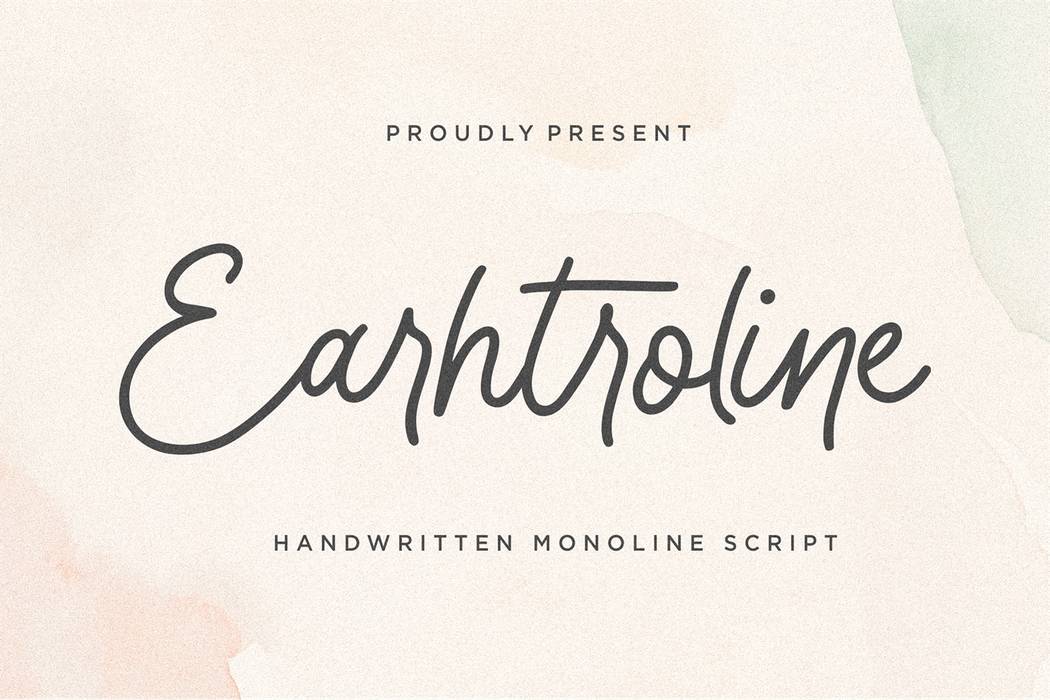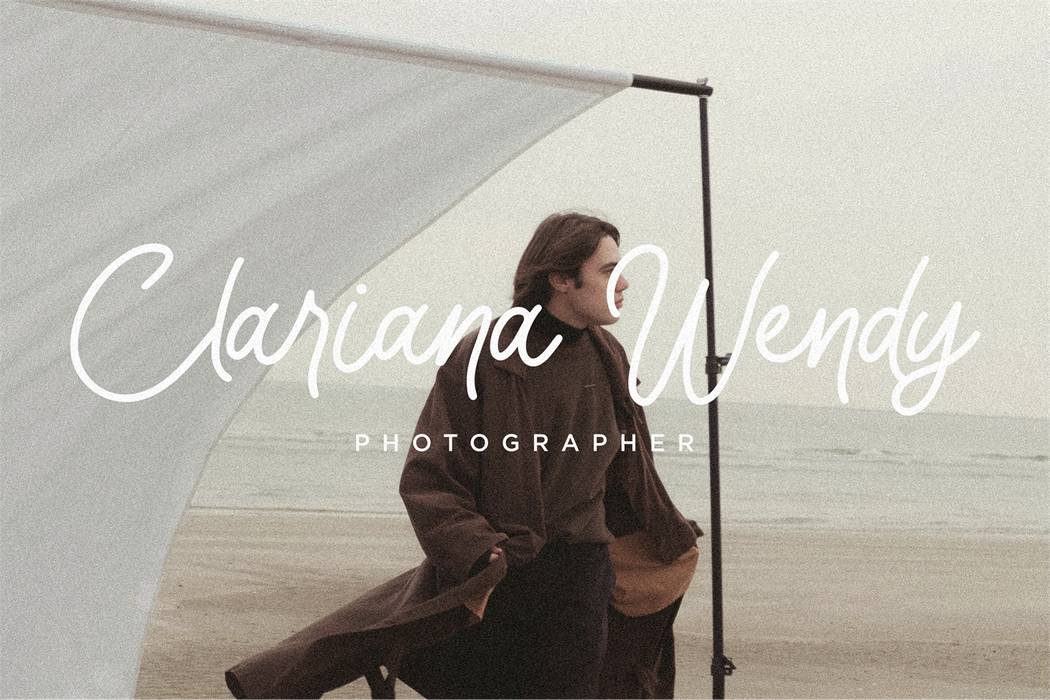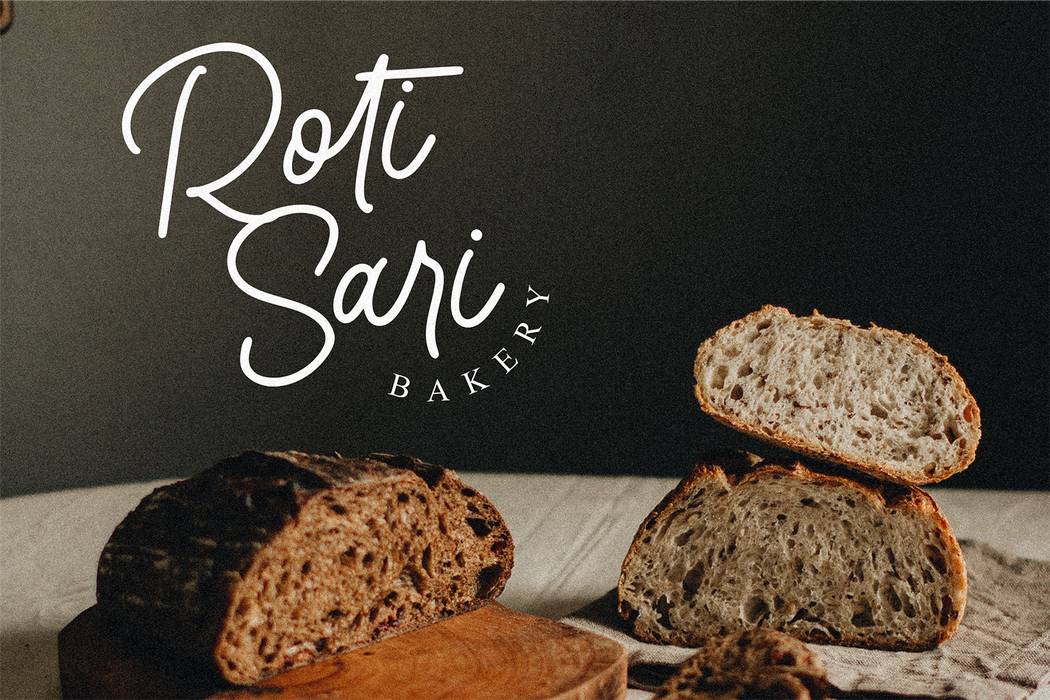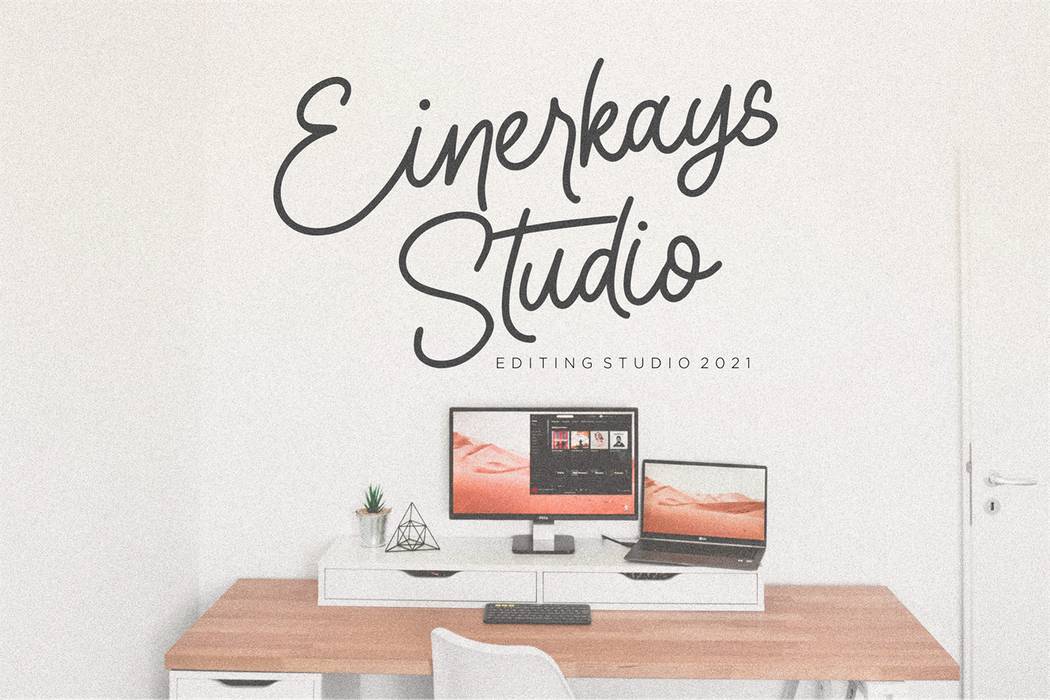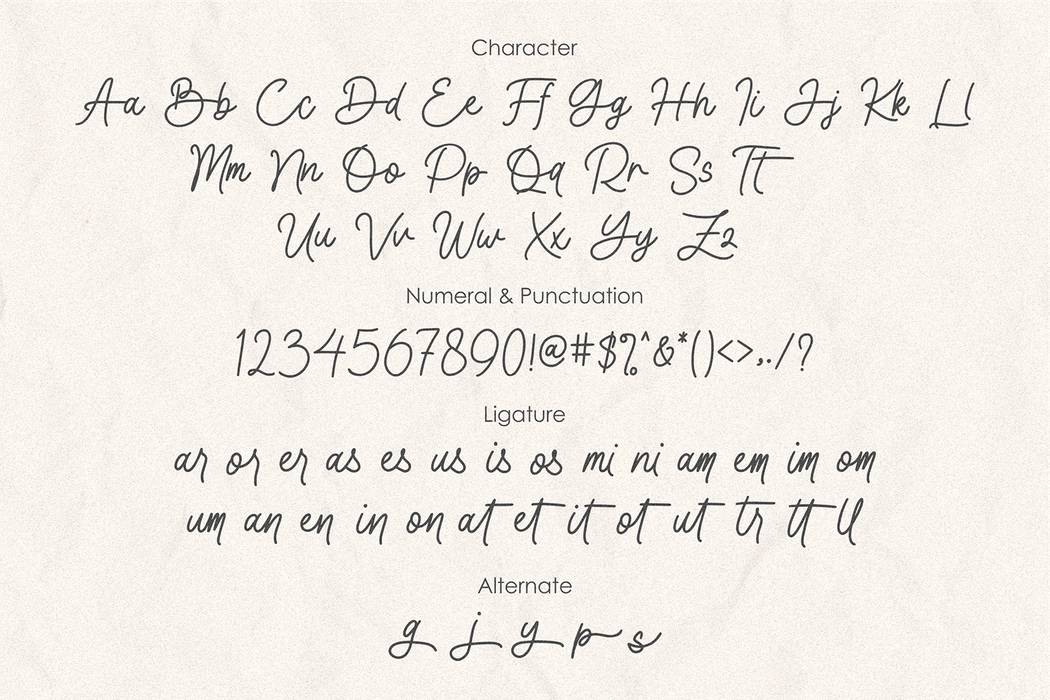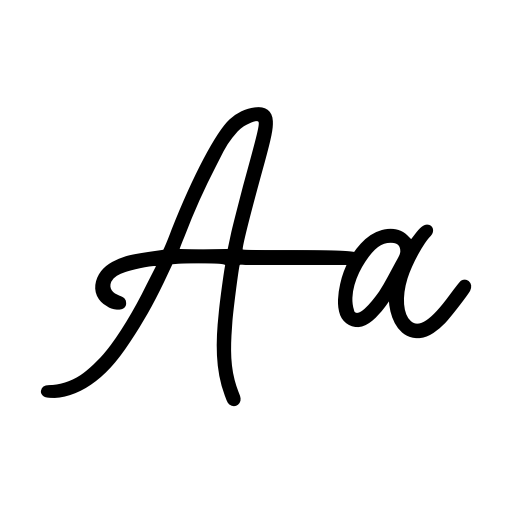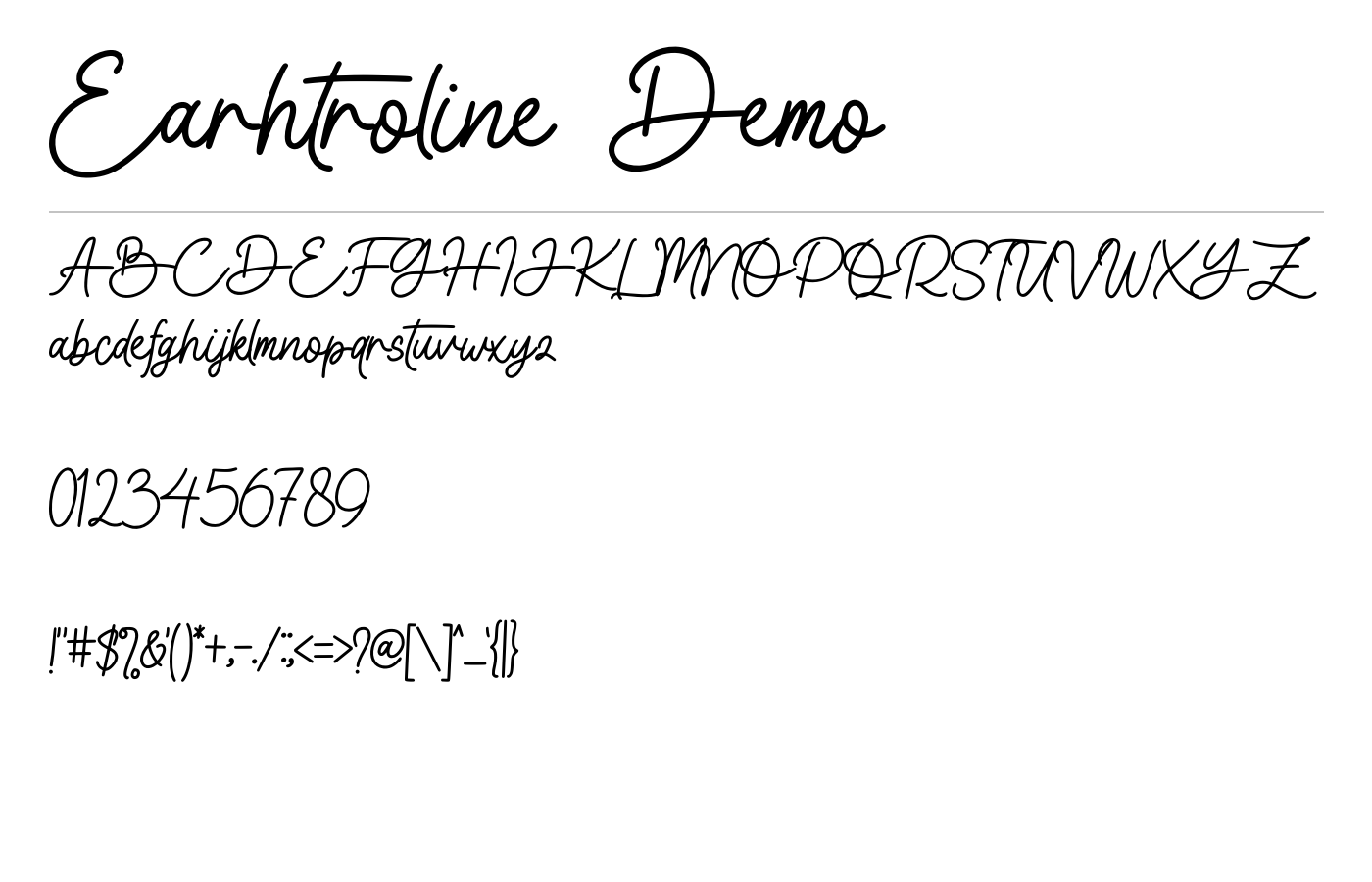
Earhtroline is a delicate, script-style font with a handwritten, elegant feel. Its thin, flowing strokes and slightly playful letterforms make it ideal for creative projects, invitations, and branding that seeks a personal, refined touch. This font works best in headings and decorative text where its graceful style can shine.
Earhtroline Font
About Earhtroline Font
| Font family | Earhtroline Font |